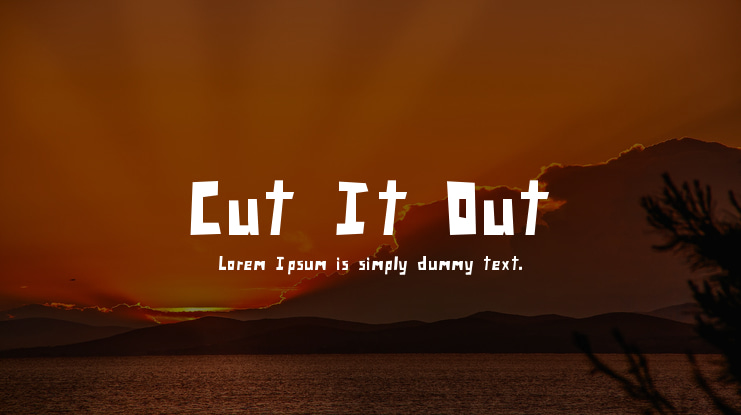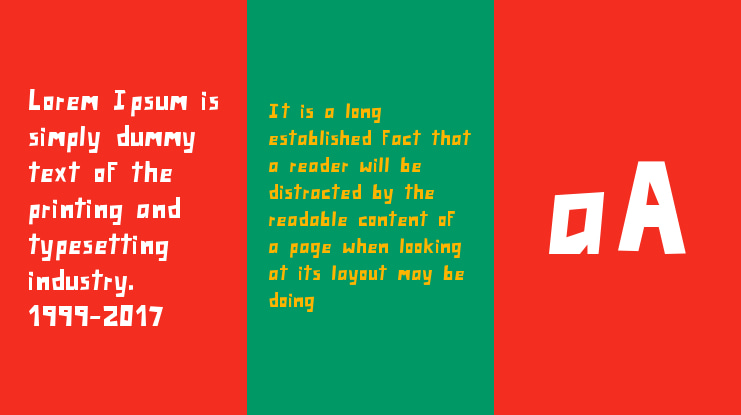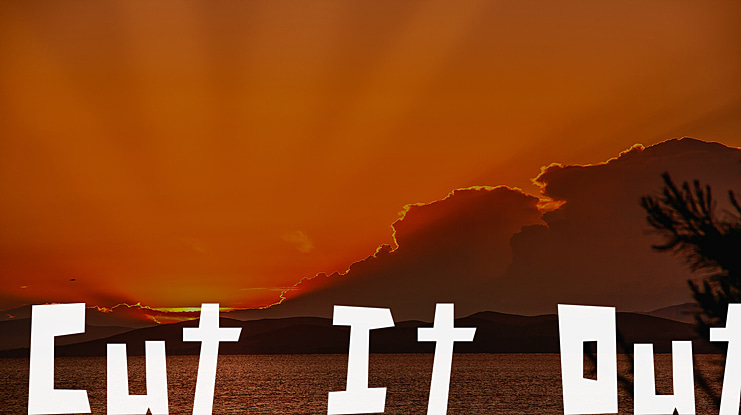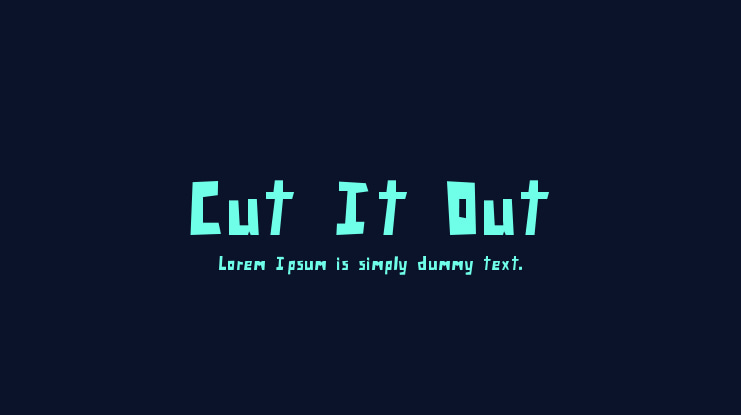
Cut It Out Font
CUT IT OUT
An angular display typeface.
Process
Cut It Out is drawn from letter forms made whilst cutting paper with scissors in the Graphic Design lab at work. Simple rules were established to flesh out the rest of the faces characters after the original ‘A’ was physically cut. No curves, straight lines, random distribution of points.